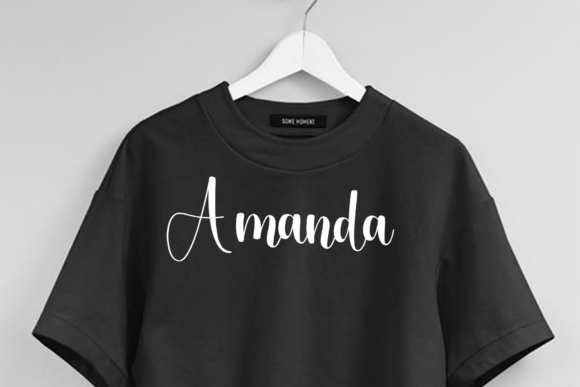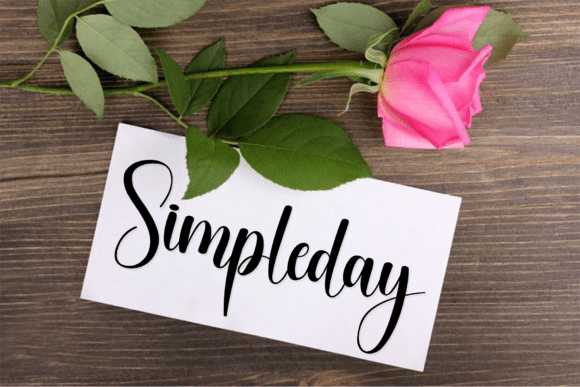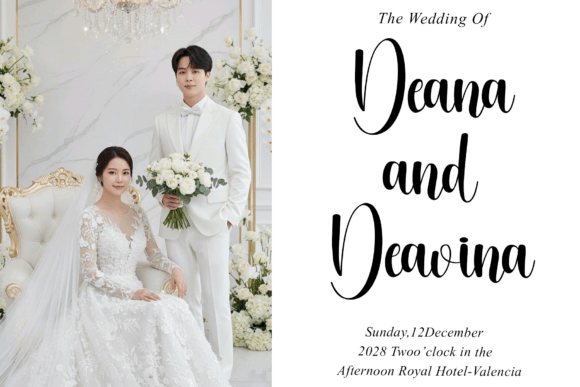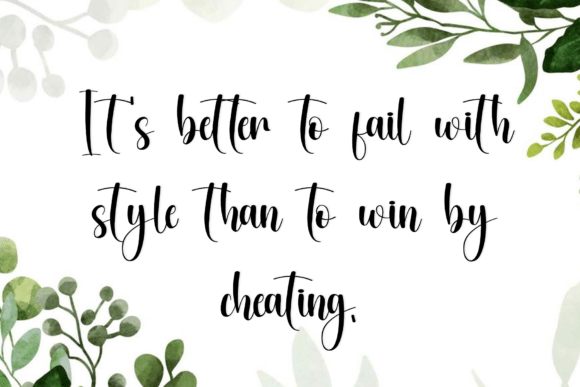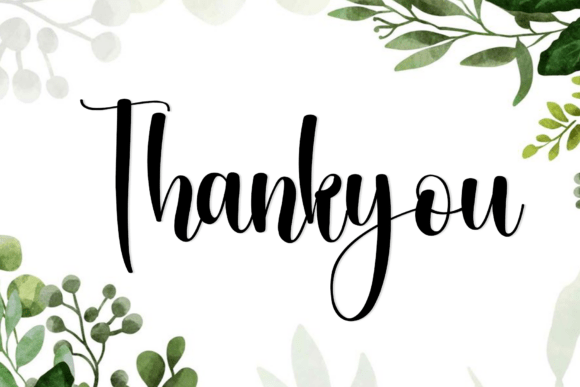
Discover the Elegance of Authentic Font: Elevate Your Designs with a Touch of Sophistication
In the world of typography, the right font can make all the difference in transforming a design from ordinary to extraordinary. For those seeking a typeface that exudes elegance, sophistication, and a touch of luxury, Authentic Font stands out as an exceptional choice. This beautifully flowing and elegant modern handwritten script font is designed to bring a sense of refinement and class to any project.
The Characteristics of Authentic Font
Authentic Font is distinguished by its smooth, generous curves and graceful, elongated strokes, which collectively contribute to its sophisticated, signature look. This professional and unique typeface is meticulously crafted to provide a sweeping, authentic, and naturally luxurious touch to designs. Whether it’s for personal branding, photography watermarks, luxury wedding stationery, editorial design, or any project that calls for a high-end feel, Authentic Font proves to be a versatile and stylish solution.
Applications of Authentic Font
The versatility of Authentic Font makes it suitable for a wide range of applications. Here are some of the areas where this elegant font truly shines:
- Personal Branding: Establish a luxurious and sophisticated image with Authentic Font. It’s perfect for logos, business cards, and letterheads, helping you to stand out in a crowded market.
- Photography Watermarks: Add a touch of elegance to your photographs with discreet yet stylish watermarks. Authentic Font ensures your watermark complements the image without overpowering it.
- Luxury Wedding Stationery: Elevate wedding invitations, menus, and place cards with a font that spells luxury and romance. It sets the tone for an unforgettable celebration.
- Editorial Design: Whether it’s for magazine articles, blog posts, or any form of editorial content, Authentic Font brings a level of sophistication that engages readers and adds credibility to the text.
Why Choose Authentic Font?
Choosing Authentic Font for your design projects comes with several advantages:
- Unique and Professional: It offers a distinctive look that sets your work apart from the generic and mundane, showcasing a professional edge.
- Elegance and Sophistication: The font’s design elements ensure that your projects exude elegance and sophistication, making it perfect for high-end clients or personal luxury brands.
- Versatility: Its adaptability across various mediums and applications makes it a valuable addition to any designer’s toolkit.
- User-Friendly: Designed to be easy to read and visually appealing, Authentic Font ensures your message is conveyed with clarity and style.
Tips for Using Authentic Font Effectively
To maximize the impact of Authentic Font in your designs, consider the following tips:
- Pair it Wisely: Combine Authentic Font with complementary fonts to create visual interest and hierarchy in your designs.
- Adjust Letter Spacing: For optimal readability, especially in longer texts, adjust the letter spacing to ensure a comfortable and aesthetically pleasing flow.
- Consider Size and Weight: Experiment with different sizes and weights of Authentic Font to add depth and emphasis to your design elements.
Authentic Font is more than just a typeface; it’s a design statement that speaks of luxury, elegance, and sophistication. Its smooth curves, elongated strokes, and naturally luxurious feel make it an ideal choice for designers and crafters looking to infuse their projects with a high-end aesthetic. Whether you’re working on personal branding, wedding stationery, editorial design, or any project in between, Authentic Font offers the perfect blend of style, versatility, and professionalism. Elevate your designs and make a lasting impression with the timeless beauty of Authentic Font.